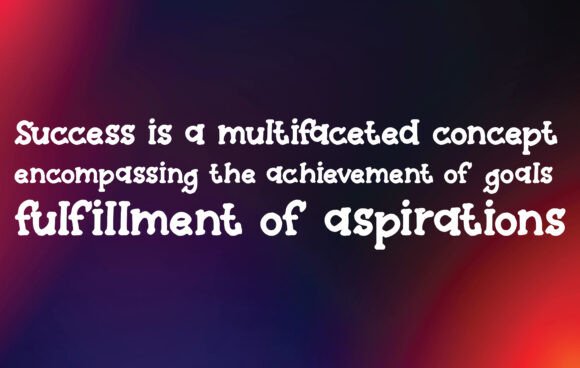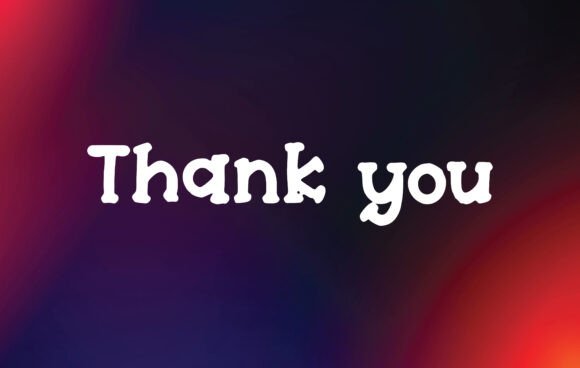
Introduction to Armadillo Font
Armadillo is a lovely and beautiful handwritten font.
Key Features of Armadillo Font
Why Choose Armadillo Font?
Armadillo Font offers exceptional quality and versatility, making it a valuable addition to your design toolkit. Whether you’re creating for personal projects or commercial use, Armadillo Font delivers professional results.